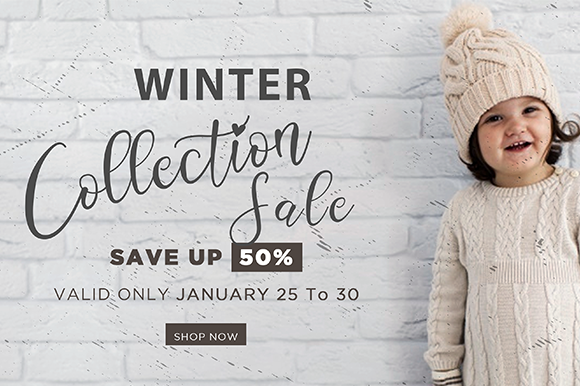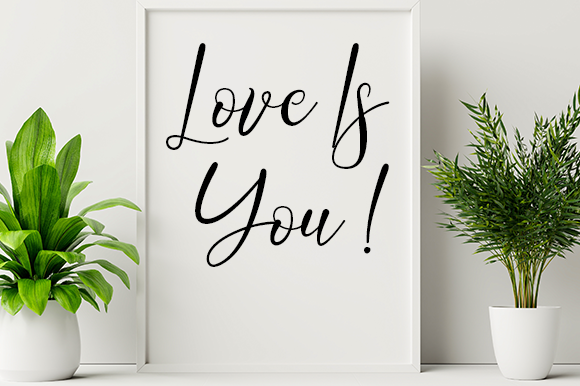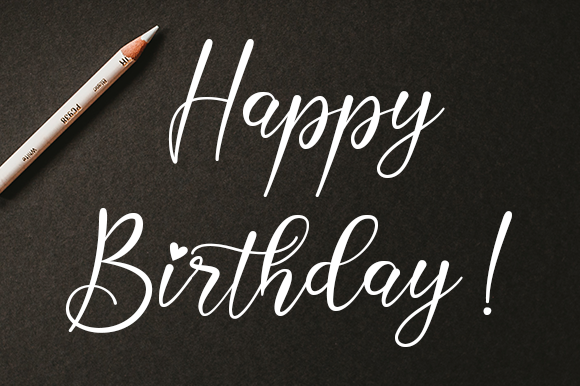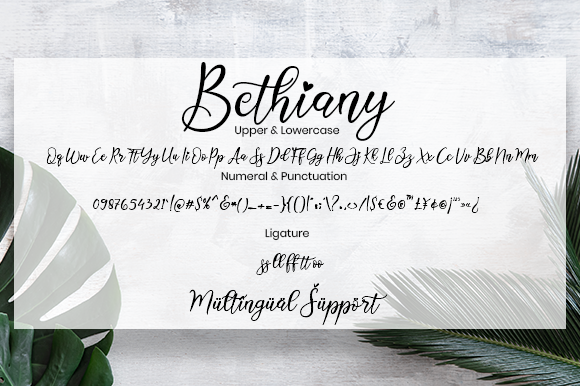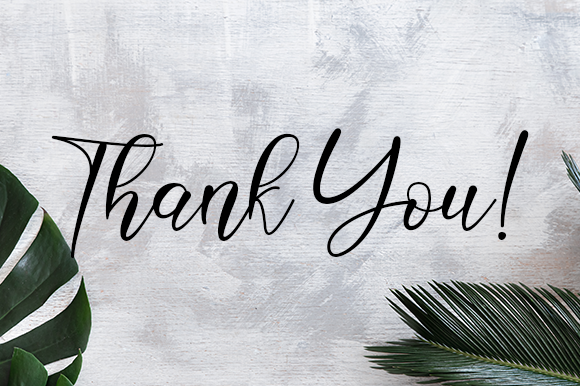
Bethiany Font
About Bethiany Font
Bethiany is a stunning and natural handwritten font that exudes elegance and authenticity. With its graceful and organic strokes, this font is the perfect choice for a wide range of design projects, adding a personal and unique touch to each one.
The beauty of Bethiany lies in its versatility and timeless appeal. Whether you’re working on branding projects, logos, wedding designs, social media posts, advertisements, product packaging, product designs, labels, photography, watermarks, invitations, stationery, or any other project that needs a personal touch, Bethiany adapts effortlessly to various contexts, making it a reliable and go-to choice for any creative endeavor.
The font’s elegant and natural flow adds a sense of sophistication and charm to your designs, making them stand out and leave a lasting impression on your audience. Its handwritten nature gives it a personal and artisanal touch, setting it apart from standard fonts and adding a sense of authenticity to your projects.
Bethiany’s readability ensures that your message is conveyed clearly and effectively, regardless of the design context. Its well-balanced characters and smooth lines make it easy to read, making it suitable for a variety of applications, from small texts to large headlines.
Whether you’re creating a logo for a high-end brand or designing wedding invitations, Bethiany adds a touch of elegance and refinement that elevates your designs to a higher level of sophistication.
In summary, Bethiany is an elegant and natural handwritten font suitable for a wide range of design projects. Its versatility and timeless appeal make it perfect for branding projects, logos, wedding designs, social media posts, advertisements, product packaging, product designs, labels, photography, watermarks, invitations, stationery, and more. Embrace the charm and authenticity of Bethiany and infuse your projects with a personal and elegant touch.